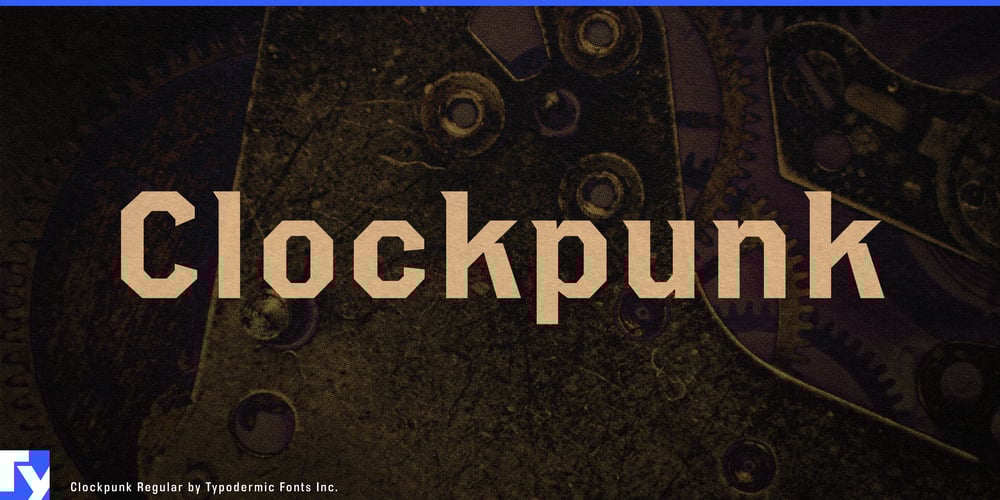
Clockpunk Font Family was designed by Ray Larabie and published by Typodermic. Clockpunk contains 2 styles and family package options. Step into the realm of Clockpunk, where the gears of time mesh seamlessly with the cogs of innovation. This industrial grotesque typeface is a masterful blend of vintage charm and modern precision, drawing inspiration from the boxy railroad signage of the early twentieth century. Clockpunk doesn’t just nod to the past—it propels your designs into a future where steampunk aesthetics collide with sci-fi imagination.Imagine sharp serifs and unwavering lines that evoke the nostalgia of vintage advertisements emblazoned on weathered brick walls. Yet, Clockpunk is far more than a trip down memory lane. Its versatility shines through in both small print applications and bold headlines, making it the perfect choice for designers who refuse to be constrained by conventional boundaries. With Regular and Small Cap styles at your disposal, Clockpunk empowers you to bring your wildest visions to life. Whether you’re crafting a visually striking poster for a steampunk extravaganza or designing the cover of a groundbreaking sci-fi novel, this typeface stands ready to elevate your work. Clockpunk doesn’t just make a statement—it starts a conversation that lingers long after the first glance.For those who appreciate linguistic diversity, Clockpunk offers an expansive character set that spans continents and cultures. Like a well-oiled machine, it smoothly integrates support for most Latin-based European languages, Greek, and a selection of Cyrillic-based writing systems. From the flowing scripts of Western Europe to the intricate characters of Vietnamese, Clockpunk’s gears turn effortlessly to accommodate a wide array of linguistic needs. This typeface doesn’t just cross borders—it obliterates them, much like the fantastical flying machines of the clockpunk genre itself.Embrace the extraordinary with Clockpunk—a typeface that defies categorization and invites you to push the boundaries of design. In a world where the tick of the clock meets the hum of futuristic machinery, Clockpunk stands as a testament to the enduring power of typography to transport, transform, and transcend.